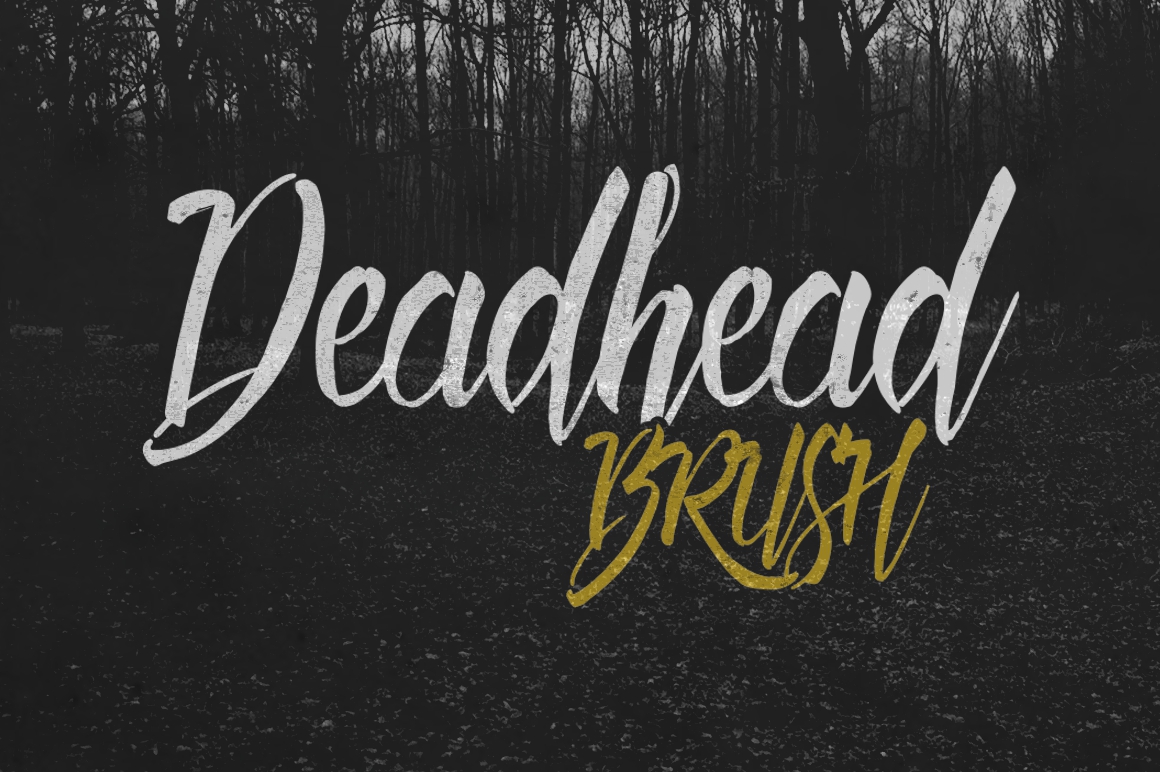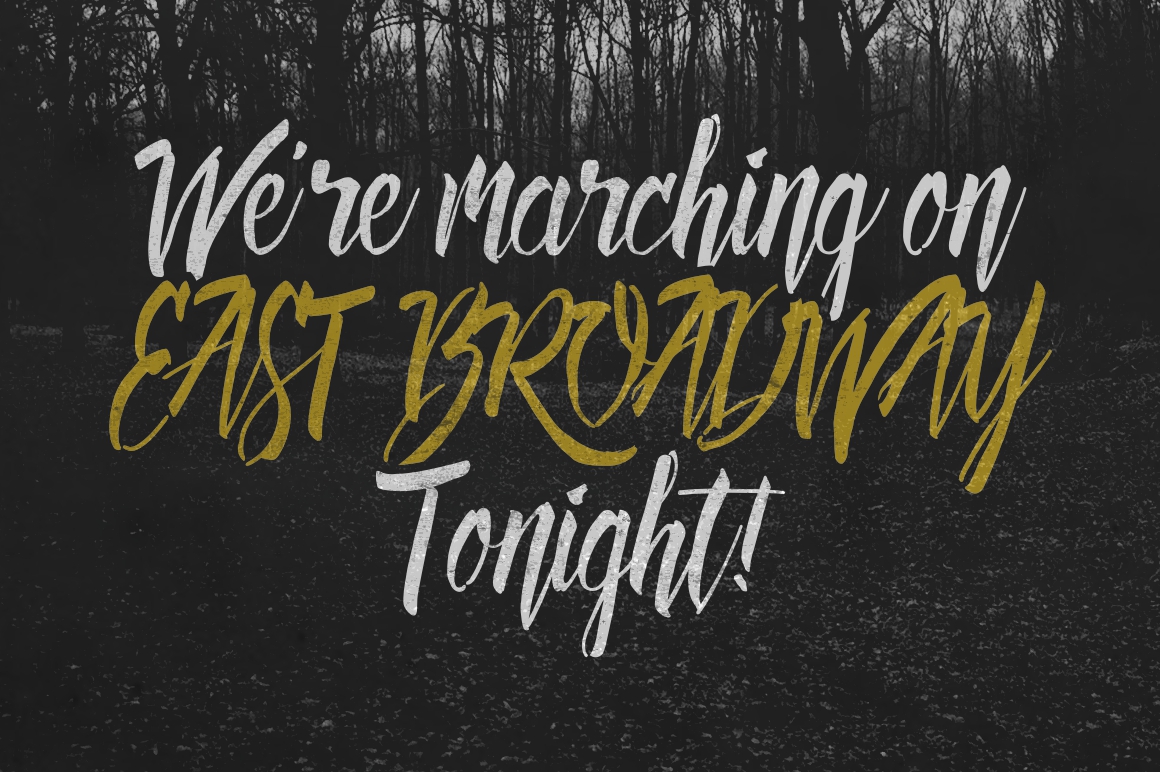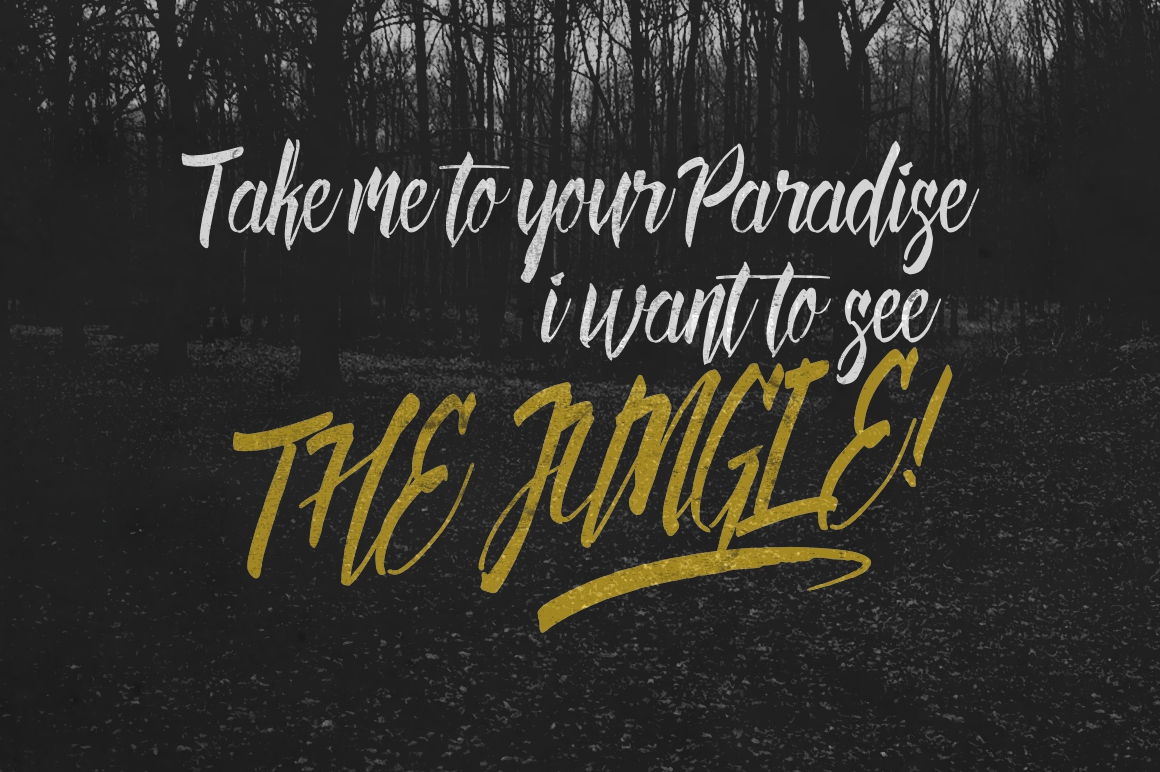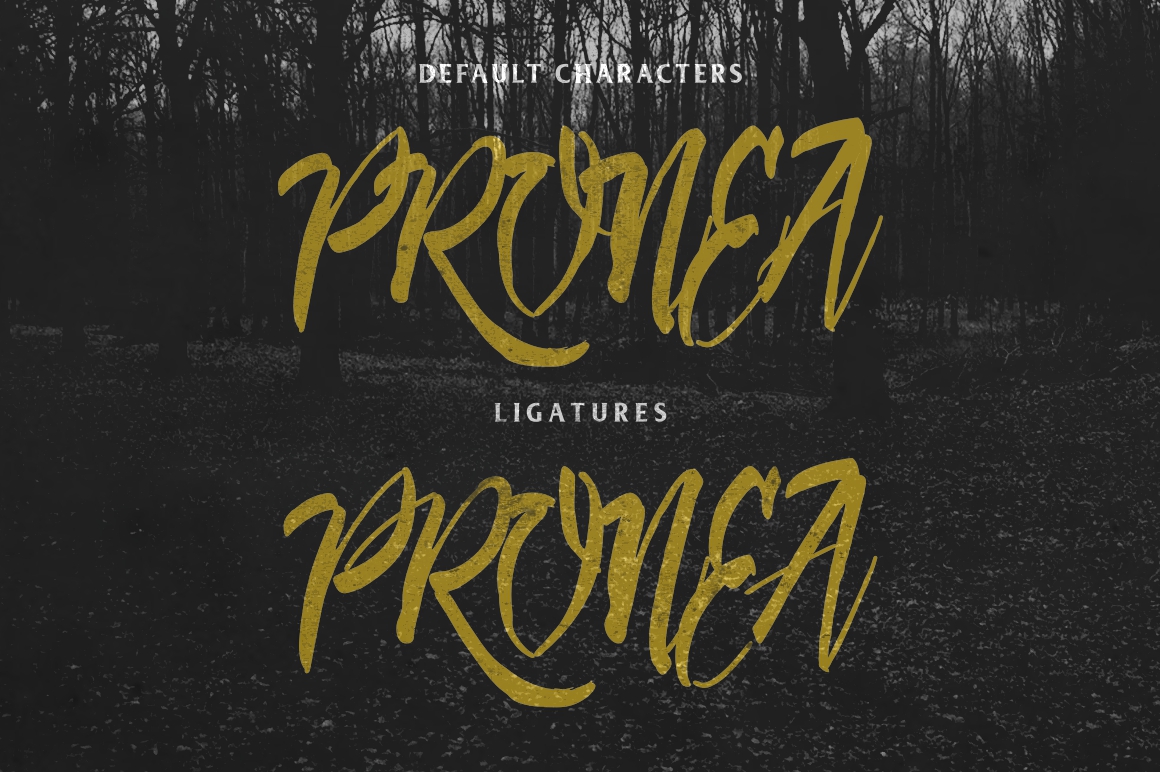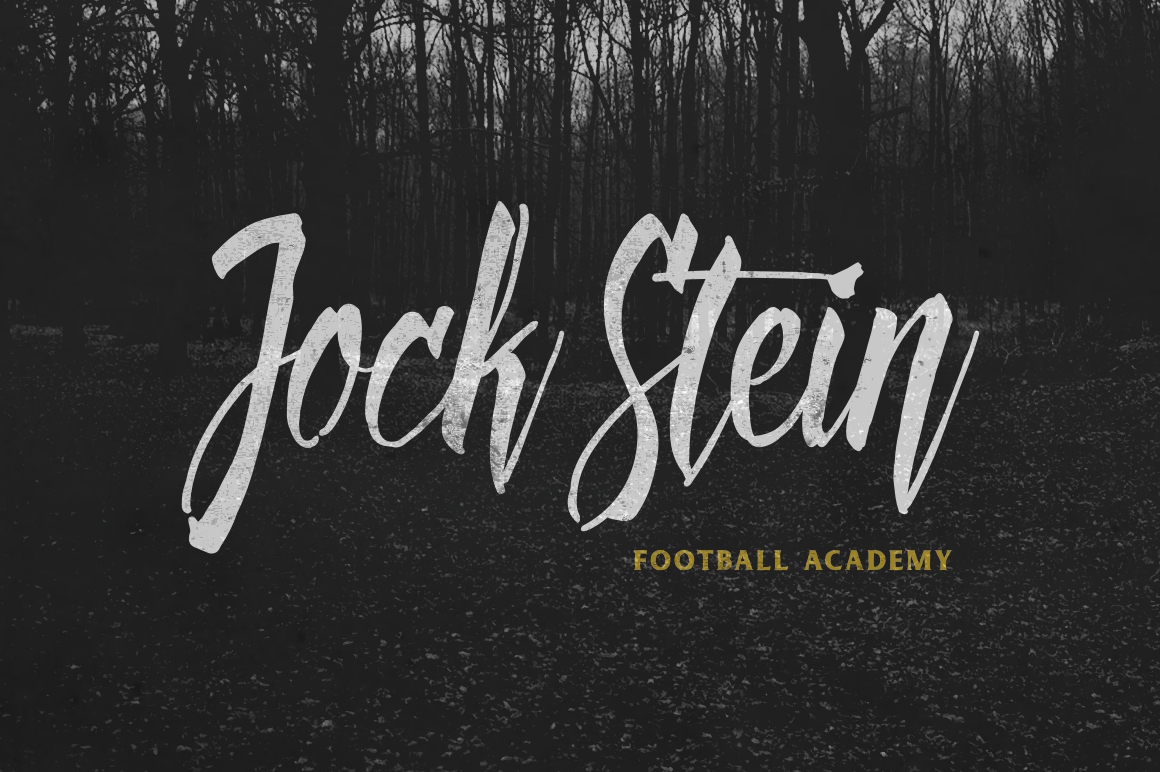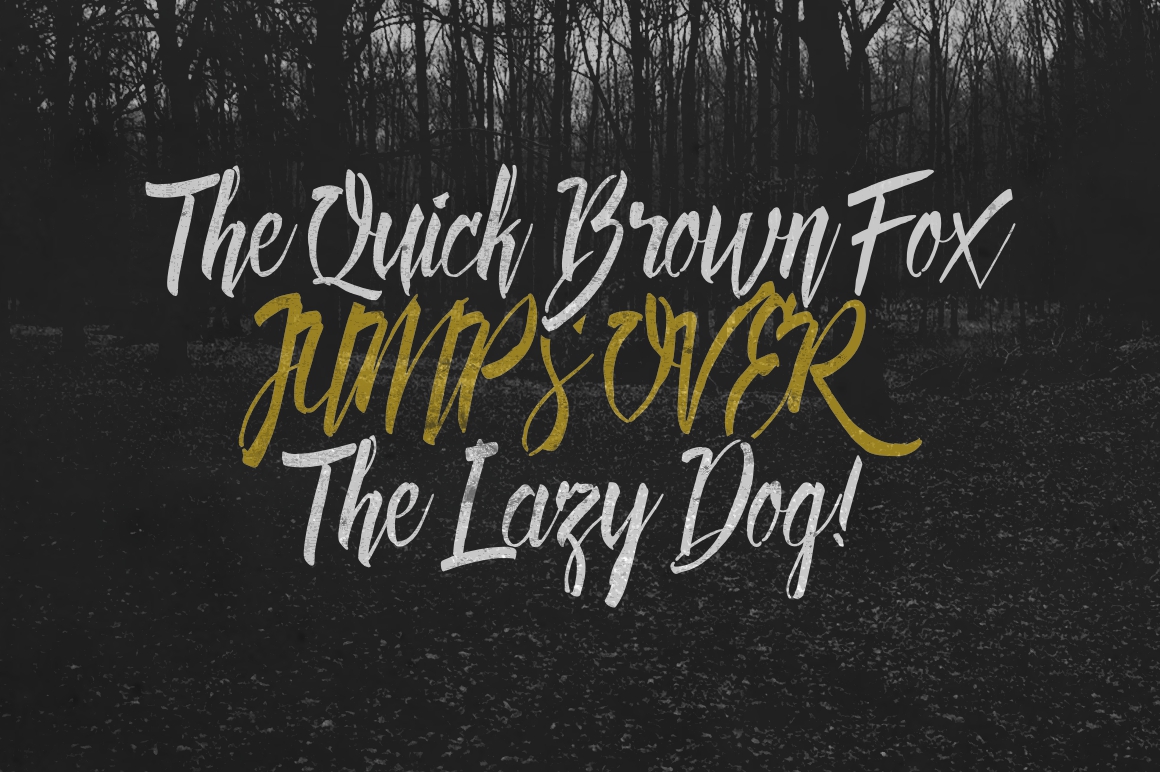
Deadhead Brush Font
About Deadhead Brush Font
Deadhead Brush is a stunning script typeface that is crafted from hand-lettering using a traditional paint brush. Its rough and jagged edges gives the font a natural feeling only found through hand brushed design.